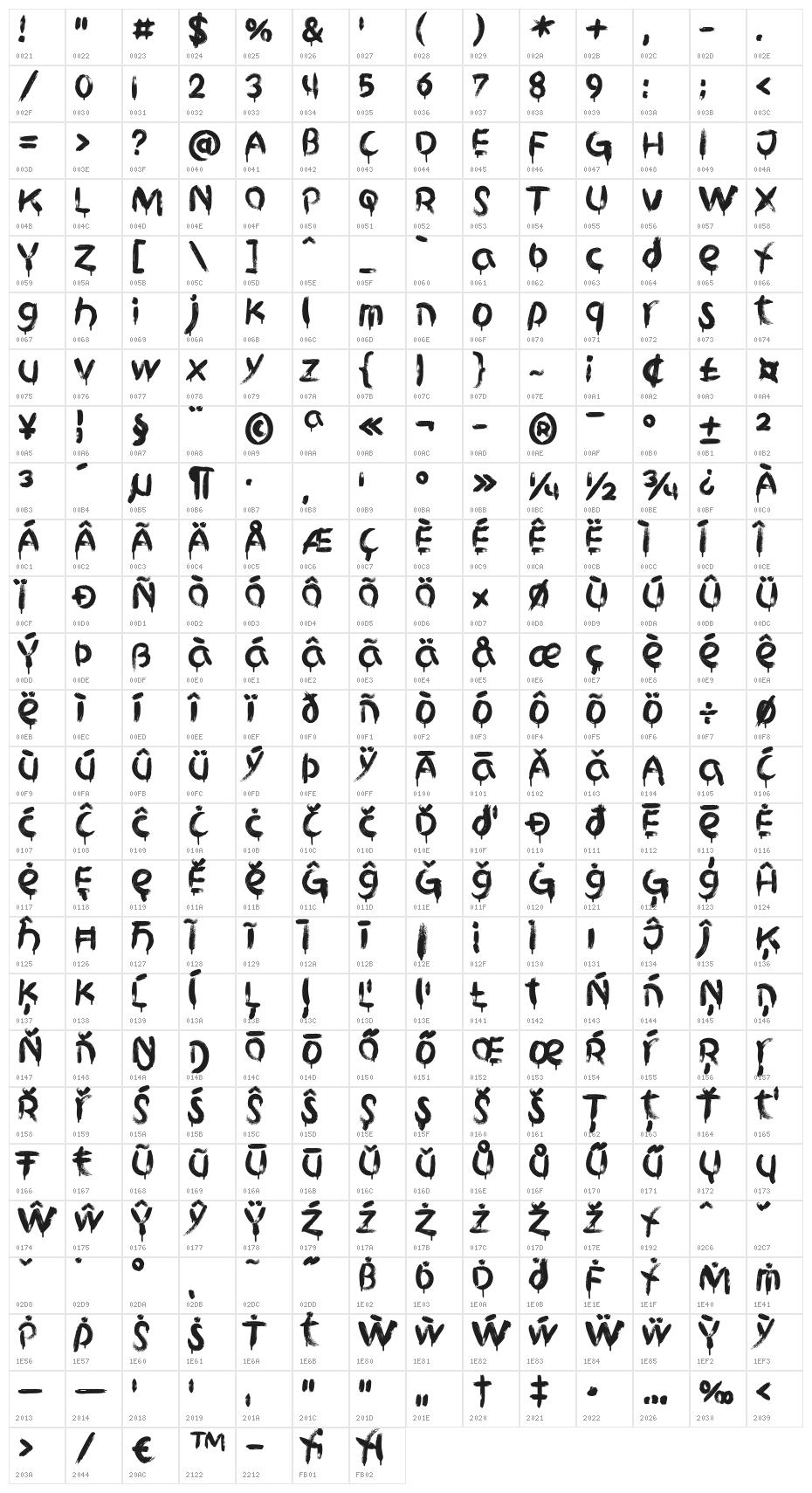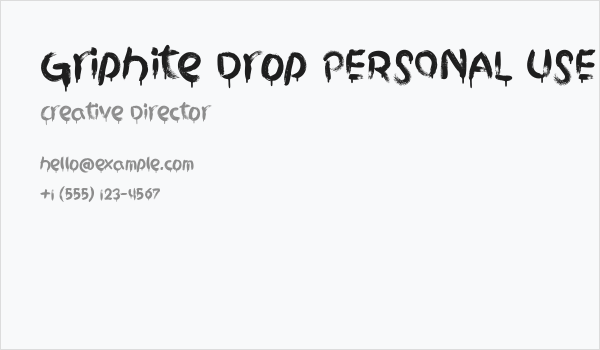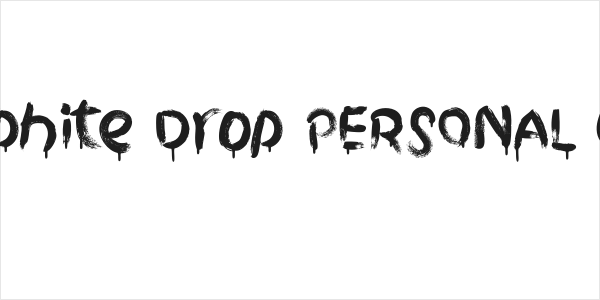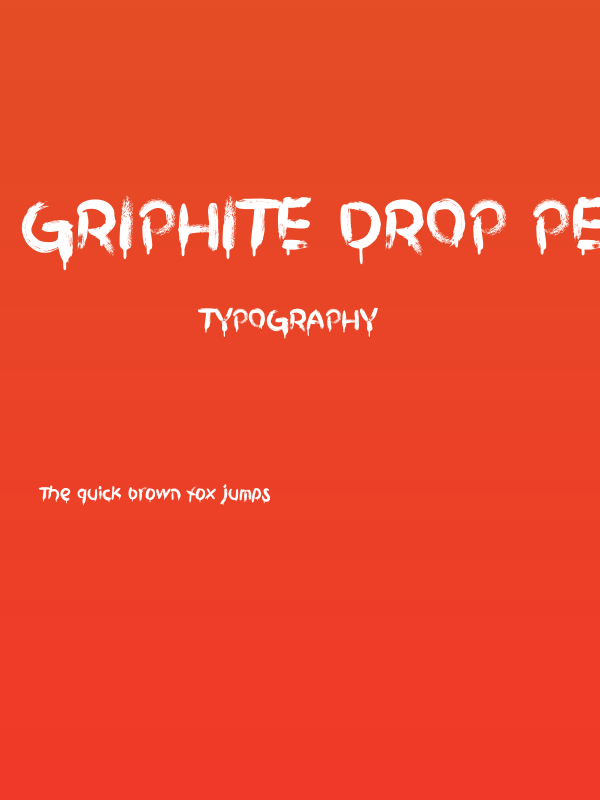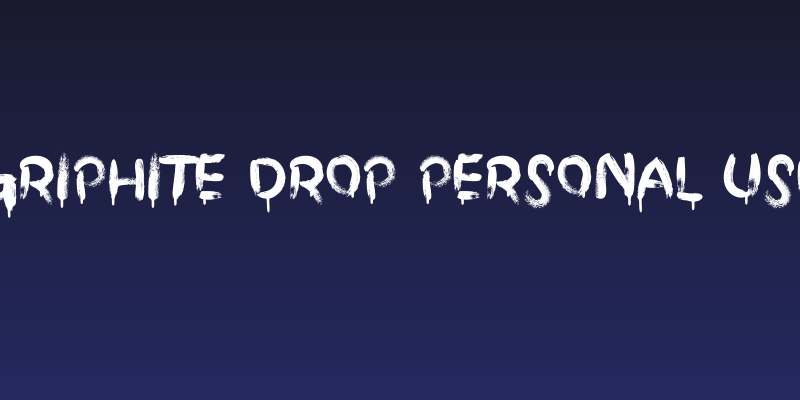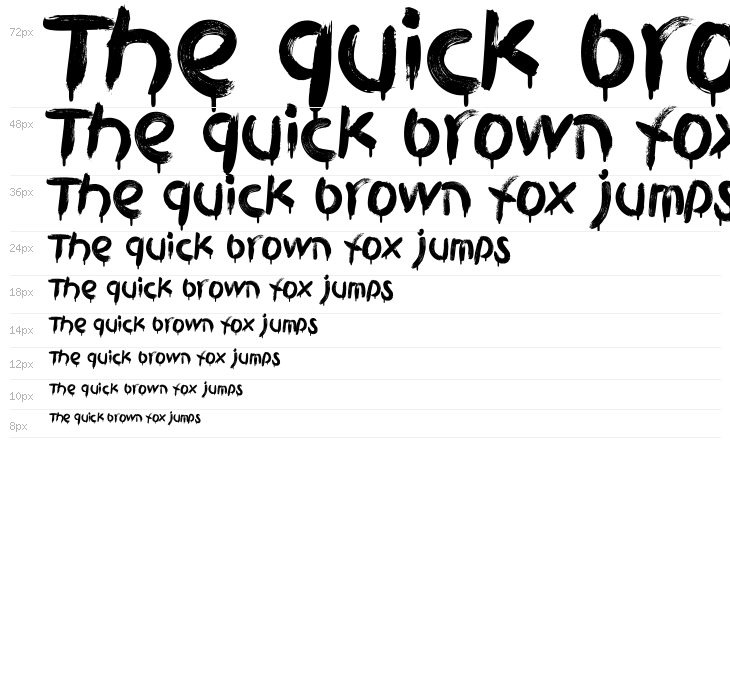
Griphite Drop PERSONAL USE Font
Griphite Drop PERSONAL USE Description
This font features a bold, expressive style with a brush-like texture that gives it a dynamic and artistic appearance. The characters appear as if they have been painted with a thick brush, with strokes that vary in thickness, creating a sense of movement and energy. The edges are rough and uneven, adding to the hand-drawn, organic feel. This font is highly decorative and stands out with its unique, grunge-inspired aesthetic. It captures attention with its dramatic flair and is ideal for projects that require a bold statement.
| Proposed Projects | Ideal for posters, album covers, street art designs, and any creative project needing a bold, artistic touch. |